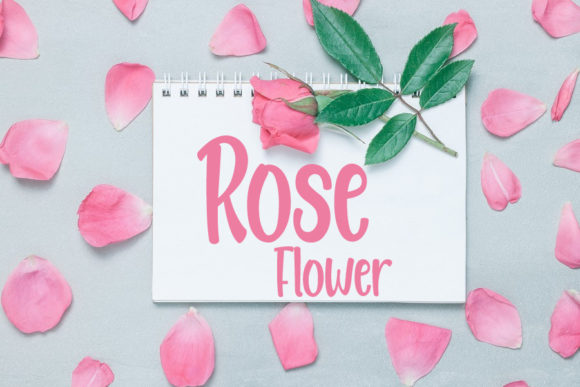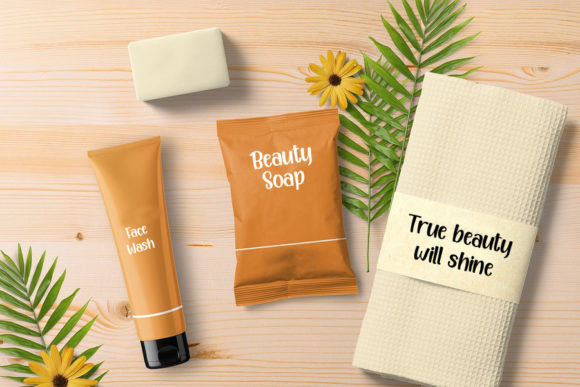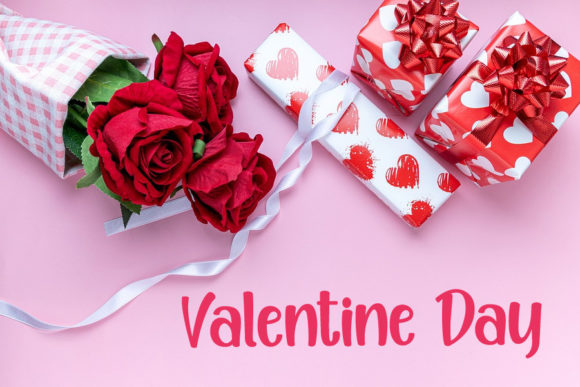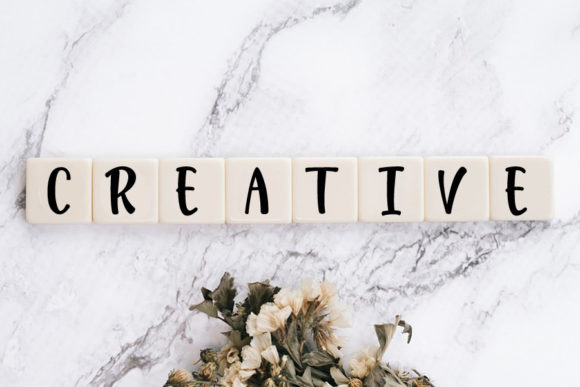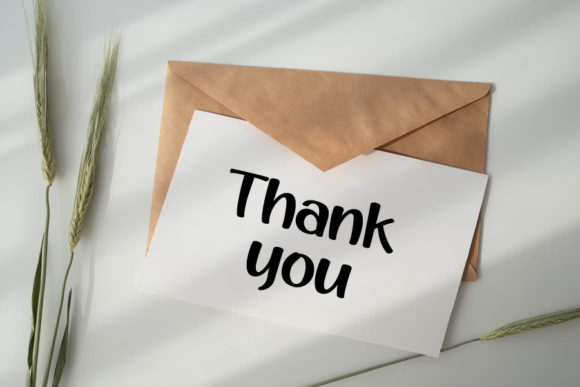
Smoothing Font
About Smoothing Font
Smoothing is a charming script font carefully created with a touch of elegance. Whether you’re looking for fonts for Instagram or calligraphy scripts for DIY projects, this font will turn any creative idea into a true piece of art!